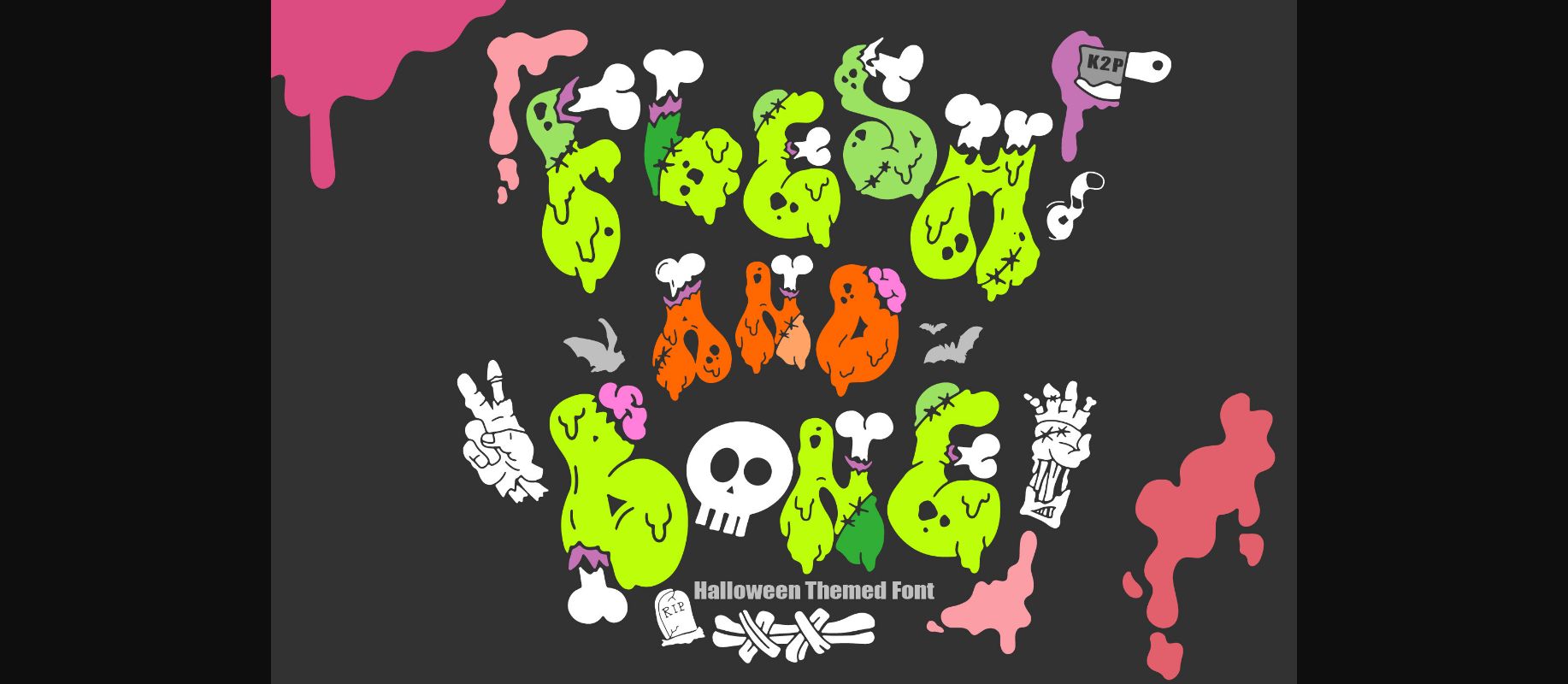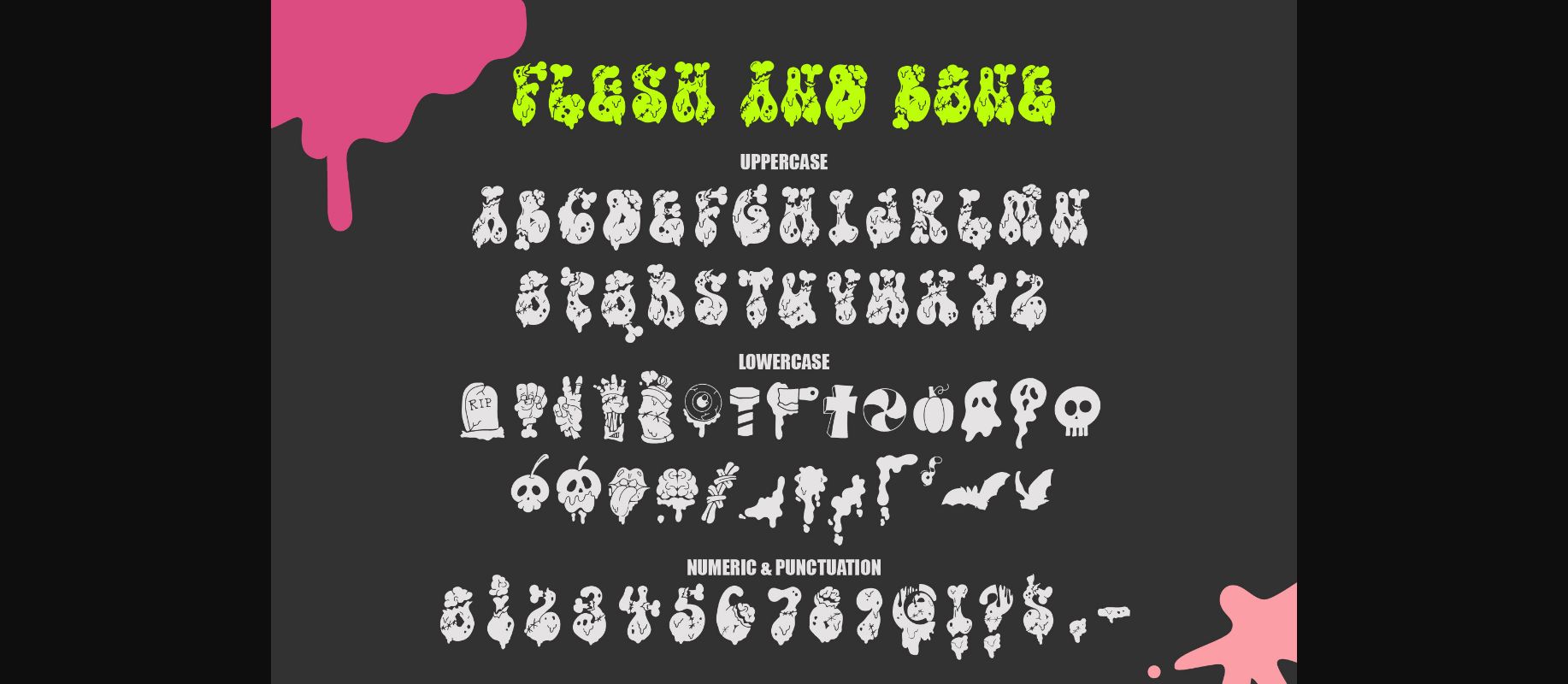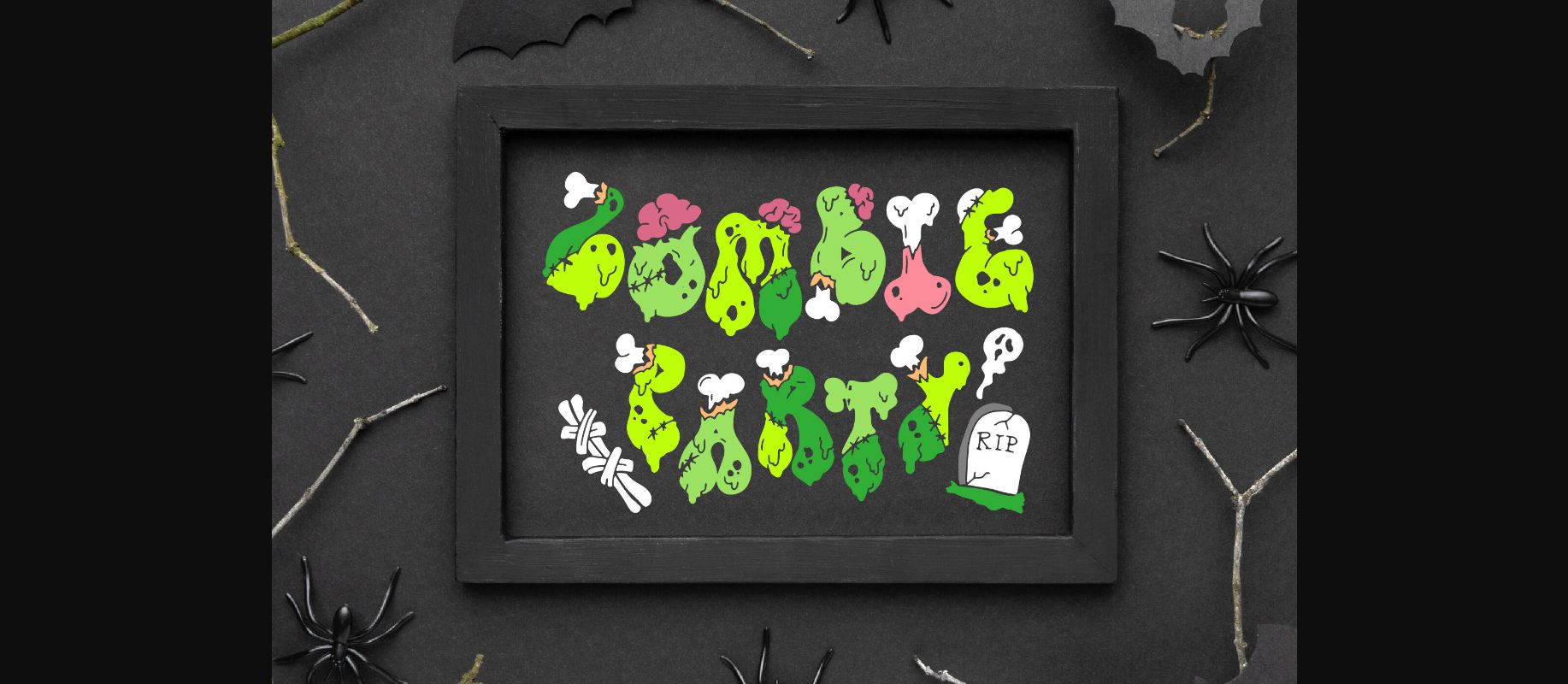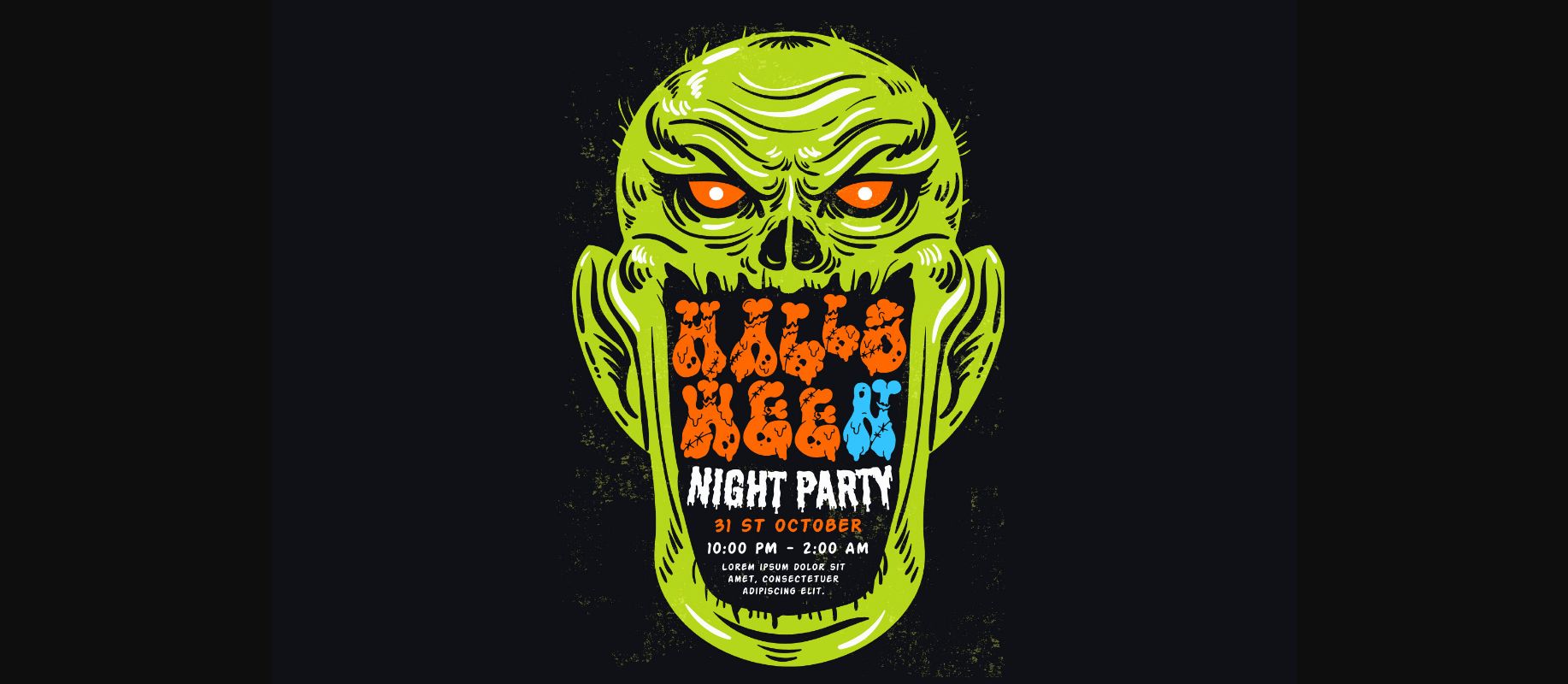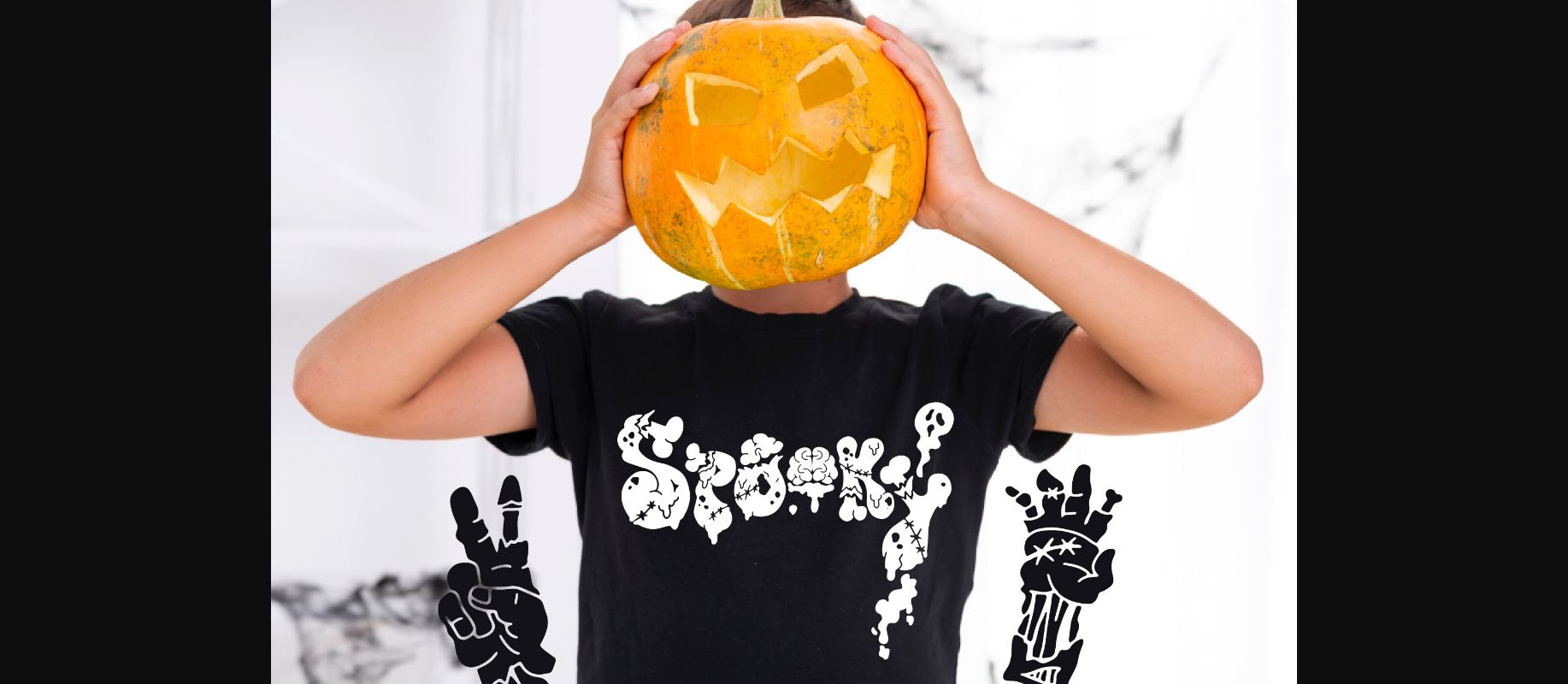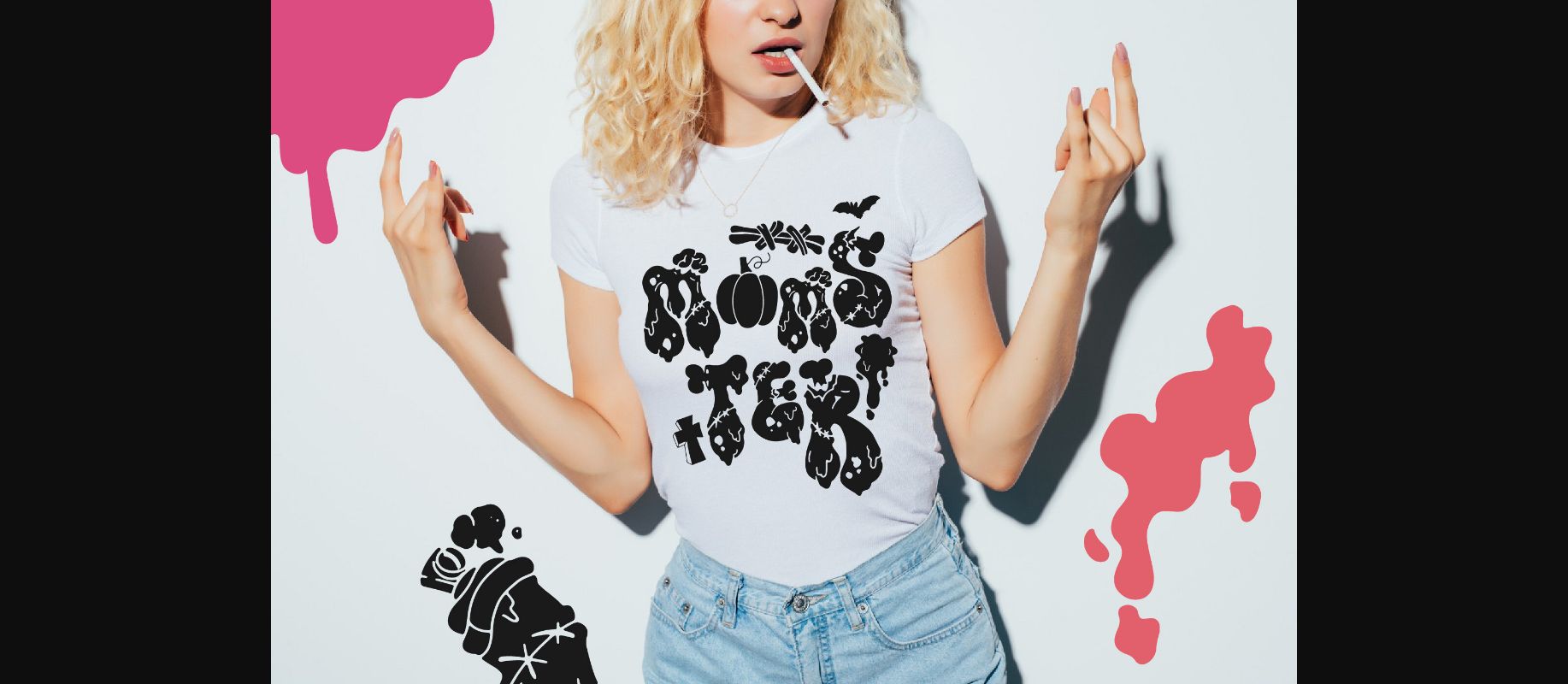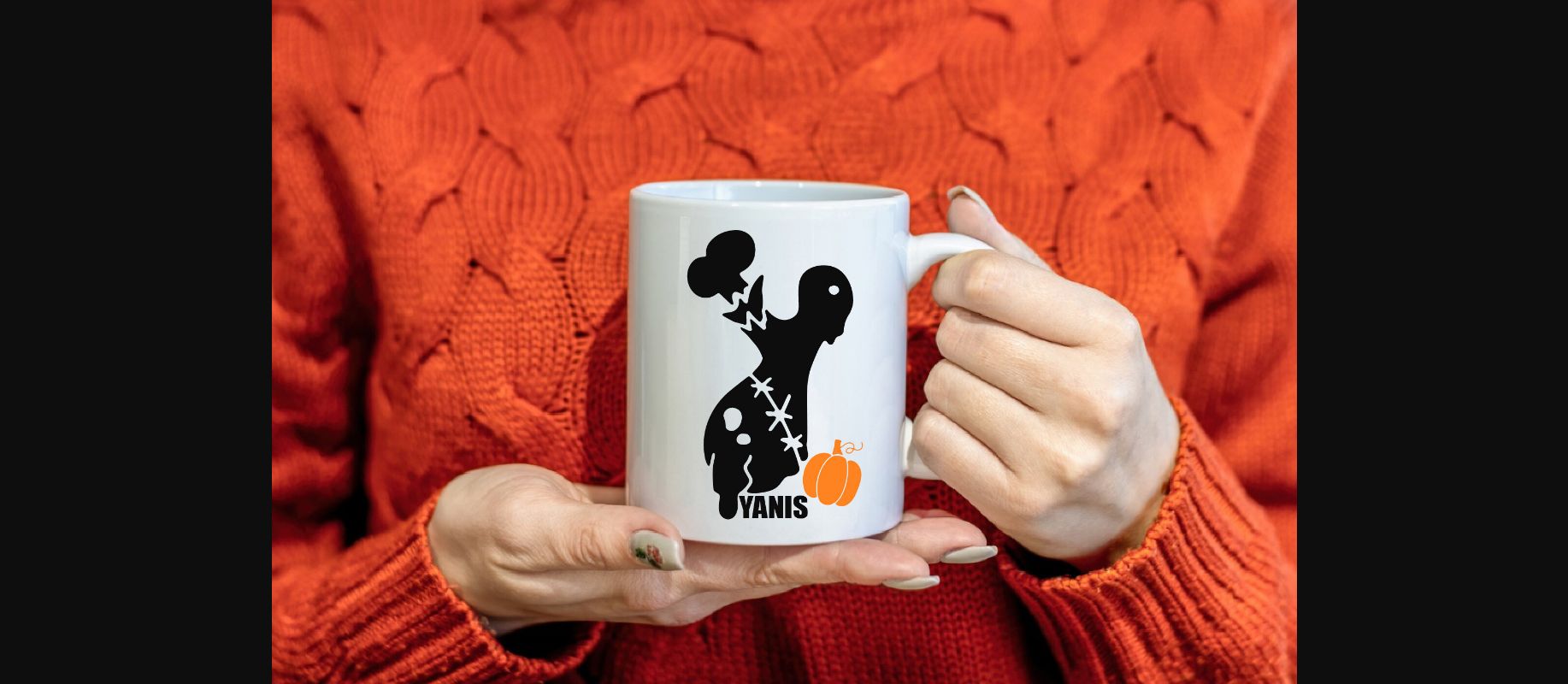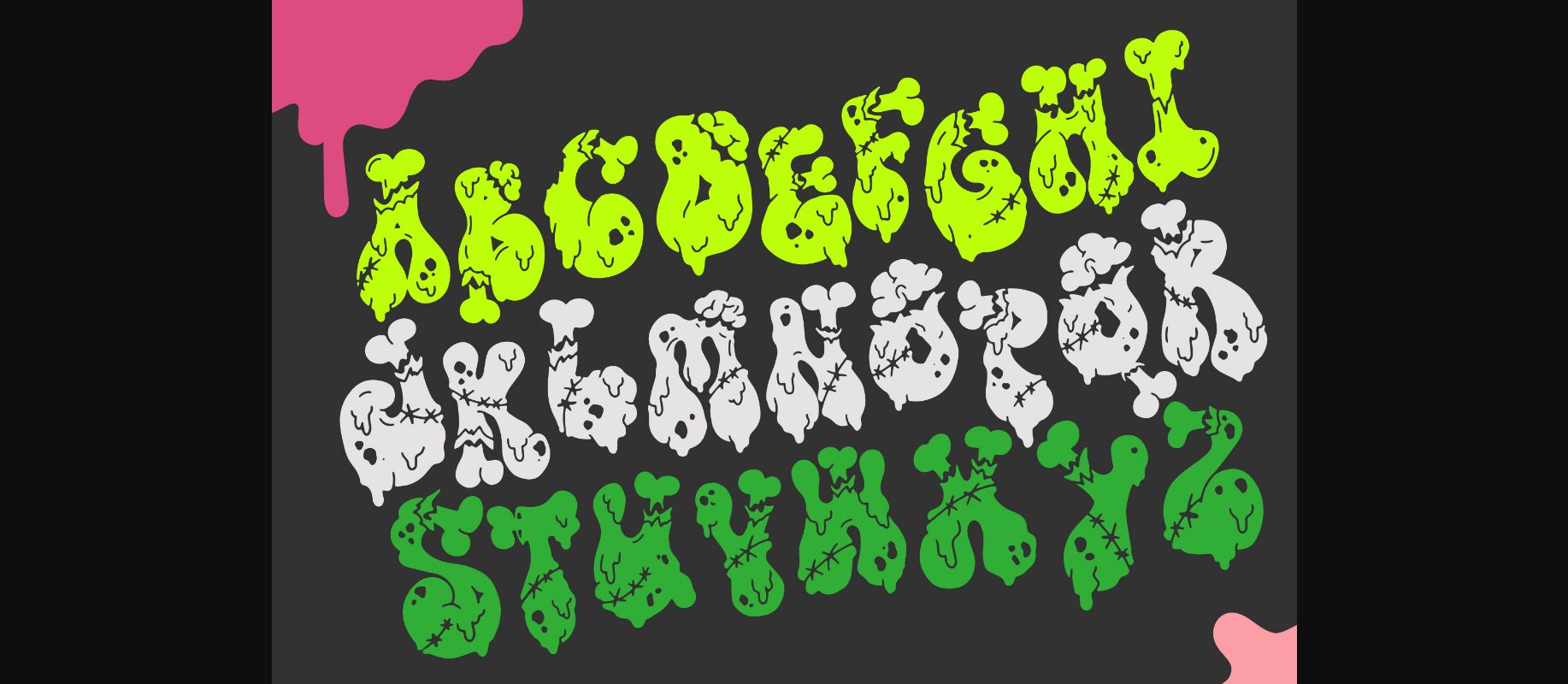
HomeDecorative FontsFlesh and Bone Font Decorative Fonts Flesh and Bone Font FacebookXPinterestWhatsApp 1 of 10 ... Flesh and Bone Font Poster 2... Flesh and Bone Font Poster 3... Flesh and Bone Font Poster 4... Flesh and Bone Font Poster 5... Flesh and Bone Font Poster 6... Flesh and Bone Font Poster 7... Flesh and Bone Font Poster 8... Flesh and Bone Font Poster 9... Flesh and Bone Font Poster 10... About Flesh and Bone Font Flesh and Bone is a spooky and fun Halloween decorative font. It is perfect for any October project that requires a dramatic touch! DOWNLOAD NOW People also explored Lemon Party Font Miguelno Carlota Font Photography Font Afterglows Font Plain Jane Font Hallowen Cutties Font Partiny Agathi Font Honey Valentine Rafika Font 314 0 TagsFlesh and Bone Font Previous articleWinter Wonderland FontNext articleThegame Kr (korean) Font LEAVE A REPLY Cancel reply Comment: Please enter your comment! Name:* Please enter your name here Email:* You have entered an incorrect email address! Please enter your email address here Website: Save my name, email, and website in this browser for the next time I comment. Personal Use Free Good Mood Personal Use Free Read more about this font Romantic February Personal Use Free Read more about this font Cinderella Personal Use Free Read more about this font Merak Personal Use Free Read more about this font BLOG Exploring Font Trends Shaping Communication in the Digital Era Fonts, like all design elements, are subject to trends. They play a crucial role in communicating a brand's personality,... How to Install and Use Fonts on Windows, macOS, and Web Projects Elegant Wedding Invitation Fonts – Handwritten & Script Fonts How to Cut Any Font on Cricut: Convert a Font to SVG (Free)